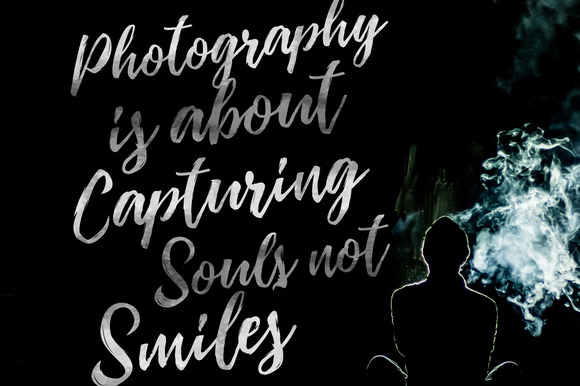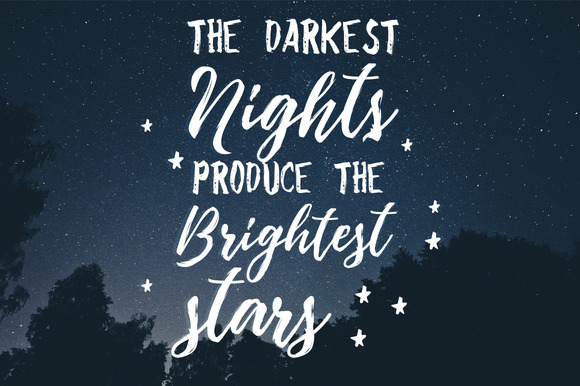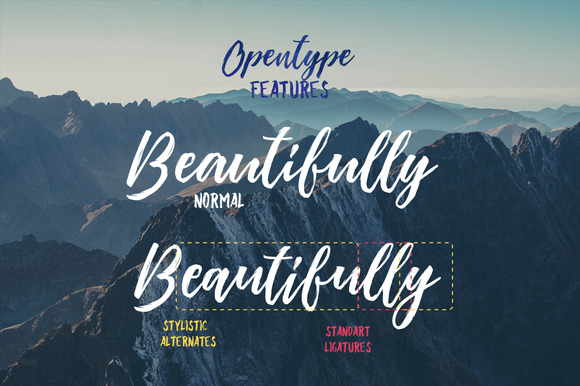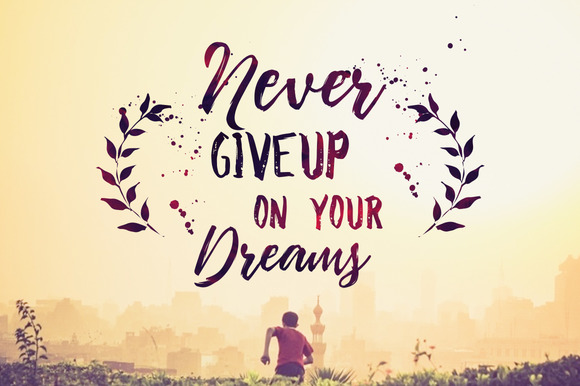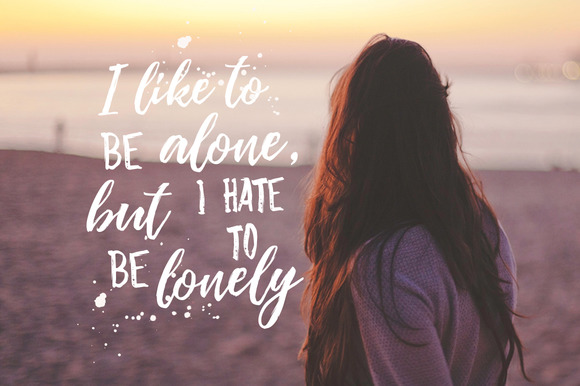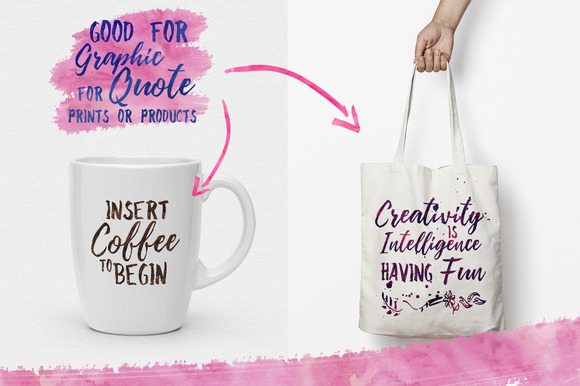
Introduction to Pennello Font
The Pennello Font is a beautiful hand Painting script with a natural look.
Key Features of Pennello Font
Why Choose Pennello Font?
Pennello Font offers exceptional quality and versatility, making it a valuable addition to your design toolkit. Whether you’re creating for personal projects or commercial use, Pennello Font delivers professional results.